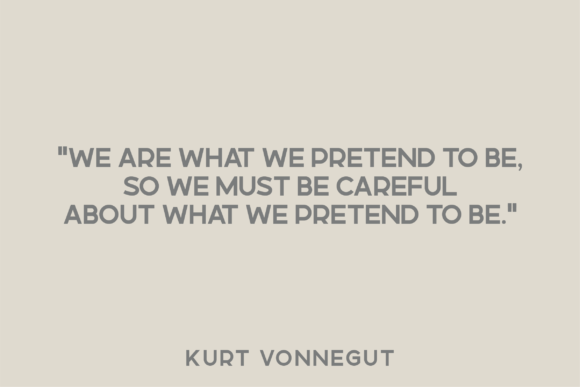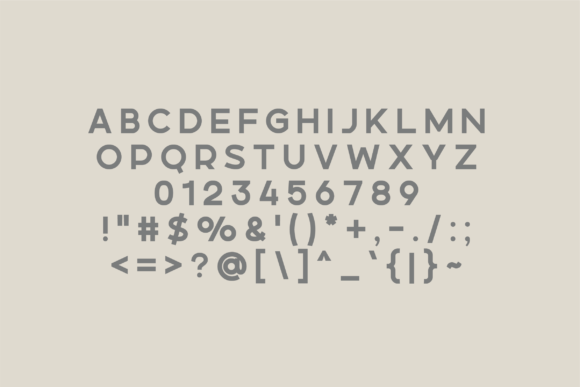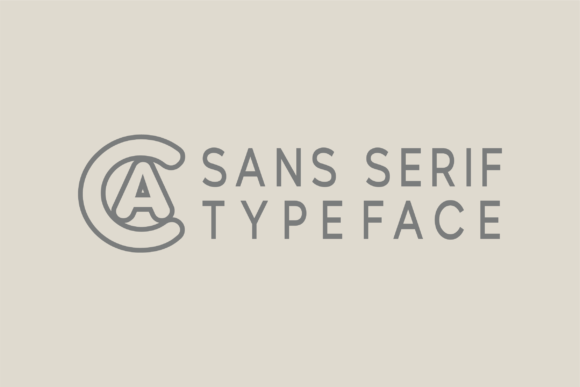
Aphotic Font: Elevate Your Designs with Modern Elegance
In the world of typography, a font can make or break a design. For designers and crafters, finding the perfect typeface that combines versatility, modernity, and class is a constant quest. This is where the Aphotic Font comes into play – a game-changing sans serif font that can elevate your creative projects to new heights. In this article, we’ll dive into the features, benefits, and uses of the Aphotic Font, and explore how it can bring your designs to life.
What is Aphotic Font?
Aphotic is a carefully crafted sans serif font that exudes modernity and sophistication. Its clean lines, precise curves, and balanced proportions make it an ideal choice for a wide range of design applications. Whether you’re working on a logo, wedding invitation, quote, advertisement, or magazine, Aphotic Font is the perfect companion to help you achieve your creative vision.
Key Features of Aphotic Font
- Versatility: Aphotic Font is designed to be versatile, making it suitable for various design projects, from branding and advertising to weddings and editorial design.
- Modern Aesthetic: The font boasts a modern and sleek appearance, perfect for designers looking to create contemporary and stylish designs.
- Classy and Elegant: Aphotic Font’s refined features and classic proportions give it a classy and elegant feel, ideal for high-end designs and luxury brands.
- Easy to Read: The font’s clear and legible design ensures that your message is conveyed effectively, making it perfect for body text and headlines.
Use Cases for Aphotic Font
Aphotic Font is an incredibly versatile typeface that can be used in a multitude of design projects, including:
- Logos and Branding: Create a lasting impression with a custom logo that showcases your brand’s personality and values.
- Weddings and Invitations: Add a touch of elegance and sophistication to your wedding invitations, save-the-dates, and other stationery.
- Quotes and Typography: Use Aphotic Font to create stunning typographic quotes, posters, and social media graphics.
- Advertisements and Marketing: Make your ads stand out with a modern and attention-grabbing font that drives results.
- Print and Editorial Design: Elevate your magazine and newspaper designs with a clean and readable font that’s perfect for body text and headlines.
Why Choose Aphotic Font?
With so many fonts available, why choose Aphotic Font for your design projects? Here are a few compelling reasons:
- Unique and Distinctive: Aphotic Font offers a fresh and unique perspective on sans serif typography, setting it apart from more traditional fonts.
- High-Quality Design: The font is meticulously crafted to ensure that every letterform, curve, and detail is of the highest quality.